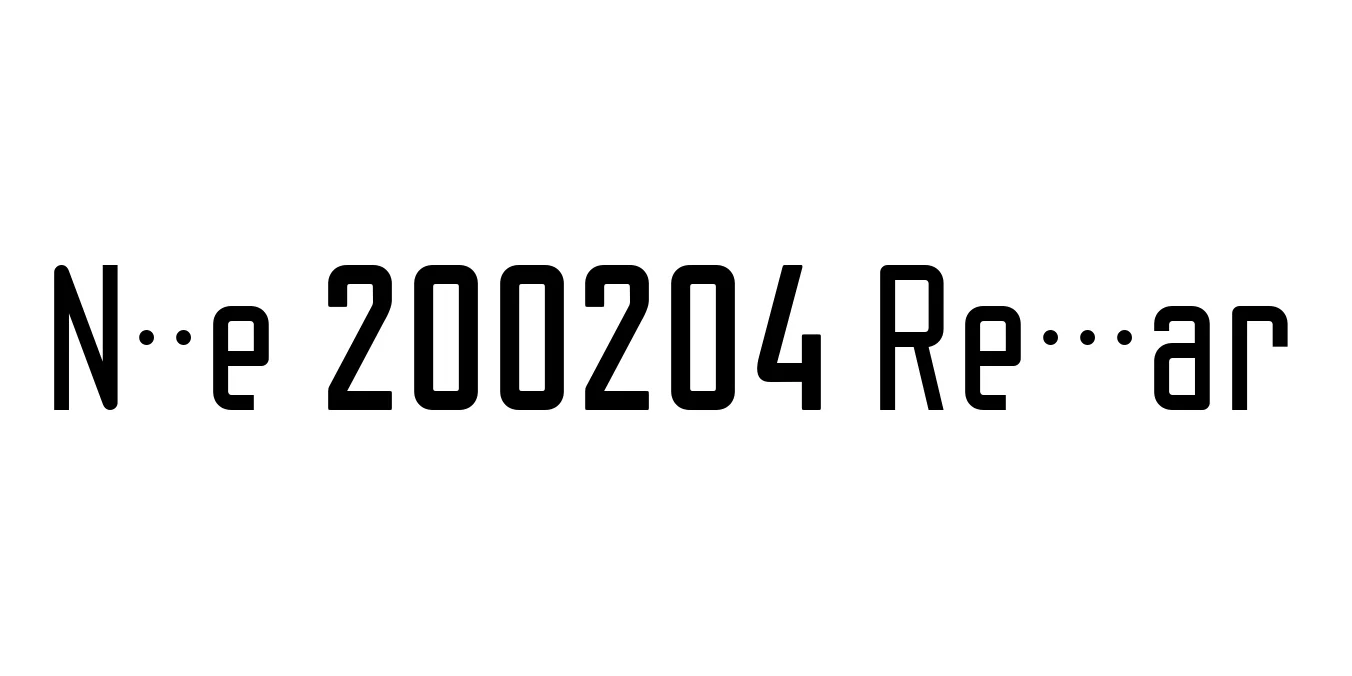
Nike 200204 Regular
Designed by Nike Inc. (Global Brand Design Team)
| Category | Sans Serif / Sports |
| Designer | Nike Inc. (Global Brand Design Team) |
| Similar Fonts | Industry Bold, United Sans, Jersey M54, Futura Extra Bold |
Nike 200204 Regular is a proprietary, bespoke typeface created specifically for Nike's global branding and athletic apparel lines. The typeface is characterized by its clean, geometric sans-serif construction, which was engineered to provide maximum legibility and visual impact on the field of play and in digital environments. It reflects the core values of the Nike brand: speed, performance, and modern innovation.
Over the years, variants of this font have been utilized across various international sports kits and marketing campaigns, serving as a signature element of the brand's visual identity. Its robust letterforms and balanced spacing make it a versatile tool for designers looking to evoke a professional, athletic aesthetic that is instantly recognizable to sports fans worldwide.
Nike 200204 Regular Best Uses
Used primarily for player names and numbers on athletic jerseys and performance gear.
Excellent for high-impact promotional posters and social media graphics.
Suitable for UI elements in sports and fitness tracking applications.
Perfect for creating strong, authoritative logos for fitness brands or sports clubs.